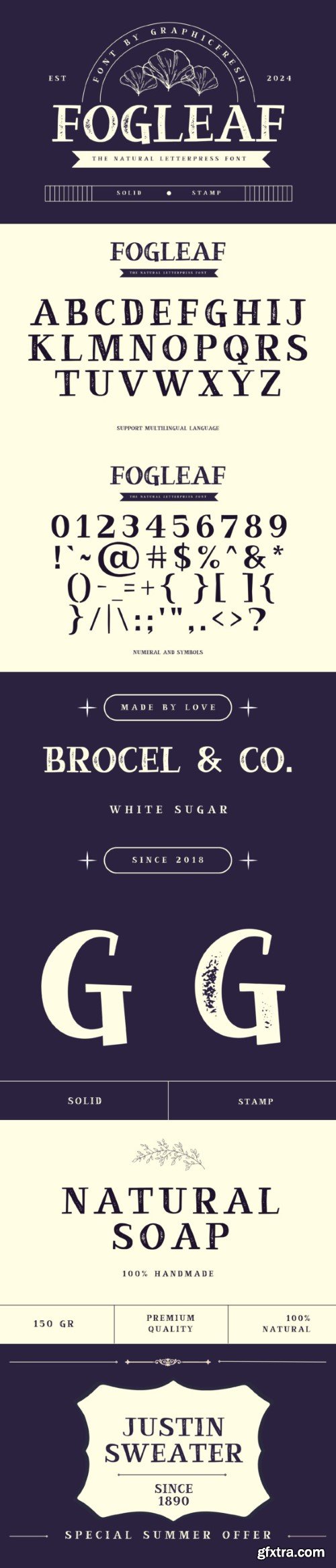
福格拉夫字体
Fogleaf is a testament to timeless elegance and sophistication. With its sleek, serif design and subtle details, it exudes a sense of refinement and class. Perfect for luxury branding, editorial layouts, and elegant invitations, Fogleaf adds a touch of understated style to any project it graces.